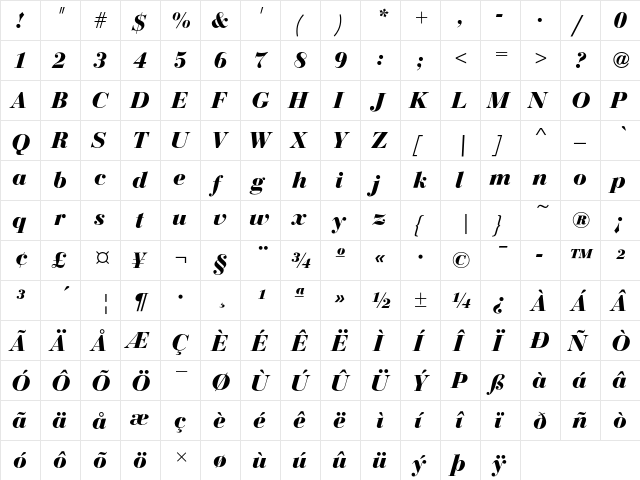
Bauer Bodoni D Bold Italic Font Preview
Design Context for Bauer Bodoni D Typeface
Bauer Bodoni D offers clean, dependable letterforms without strong stylistic allegiance, making it a practical choice for designers who need flexibility. The dynamic lean of this cut emphasises speed and emphasis in any layout. The heavy weight commands attention and anchors typographic hierarchies.
Pro Tip: Try Bauer Bodoni D for annotation and caption copy alongside an upright companion — the contrast in angle creates a dynamic but ordered typographic system.